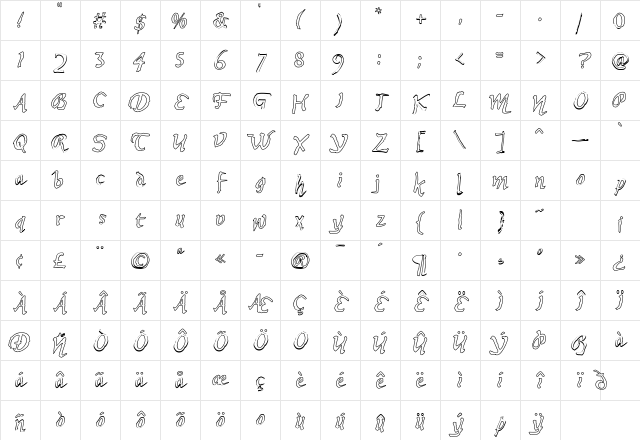
Complete Ashtray Regular glyph index. Displaying only characters natively supported by Ashtray Regular font.
Ashtray is a composed and adaptable typeface that performs quietly and consistently across a wide range of design contexts.
Who designed the Ashtray Regular font?